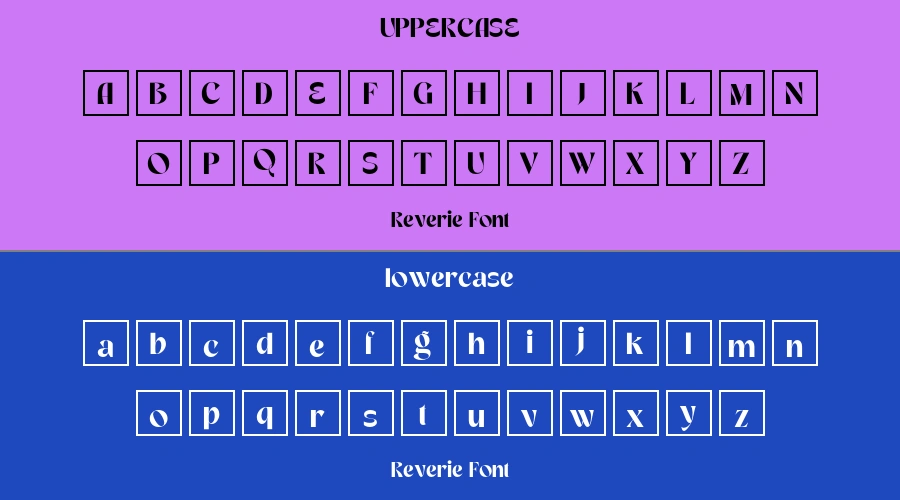
About Reverie Font
Designed with precision, Reverie Font merges playful elements with accuracy in every character. This versatility makes it particularly effective for heritage brands, where versatility and functional utility directly impact communication quality. Each letterform demonstrates meticulous craftsmanship.
Technical excellence shines through elements like ink flow effects and connecting forms, enhancing typographic versatility. In product names settings, Reverie Font proves its worth through superior consistency. The thoughtful execution of x-height proportion and professional credibility ensures professional results.